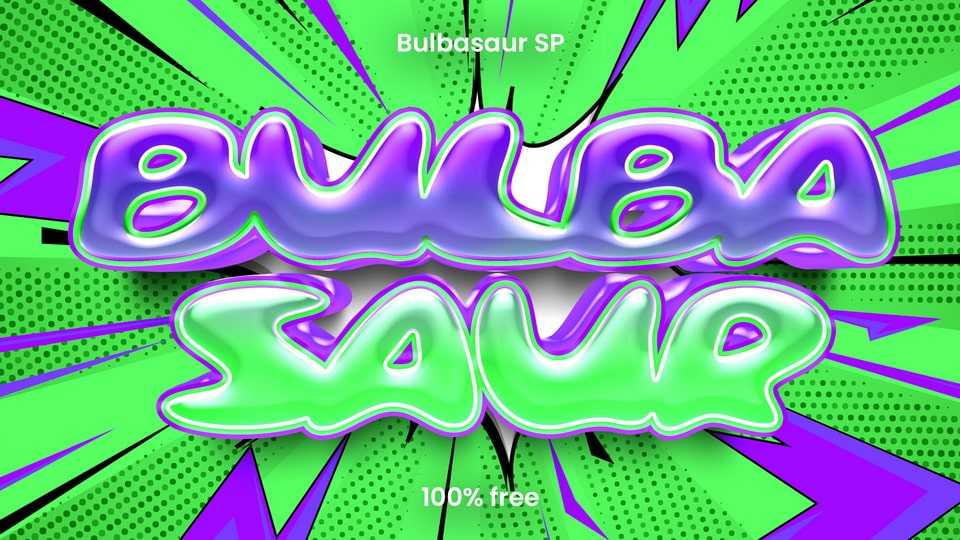
Download Bulbasaur SP font, an adventurous accident-style typeface with plump, rounded letters that pay homage to the iconic Pokémon character—Bulbasaur.
Designer: Sasha Pavljenko